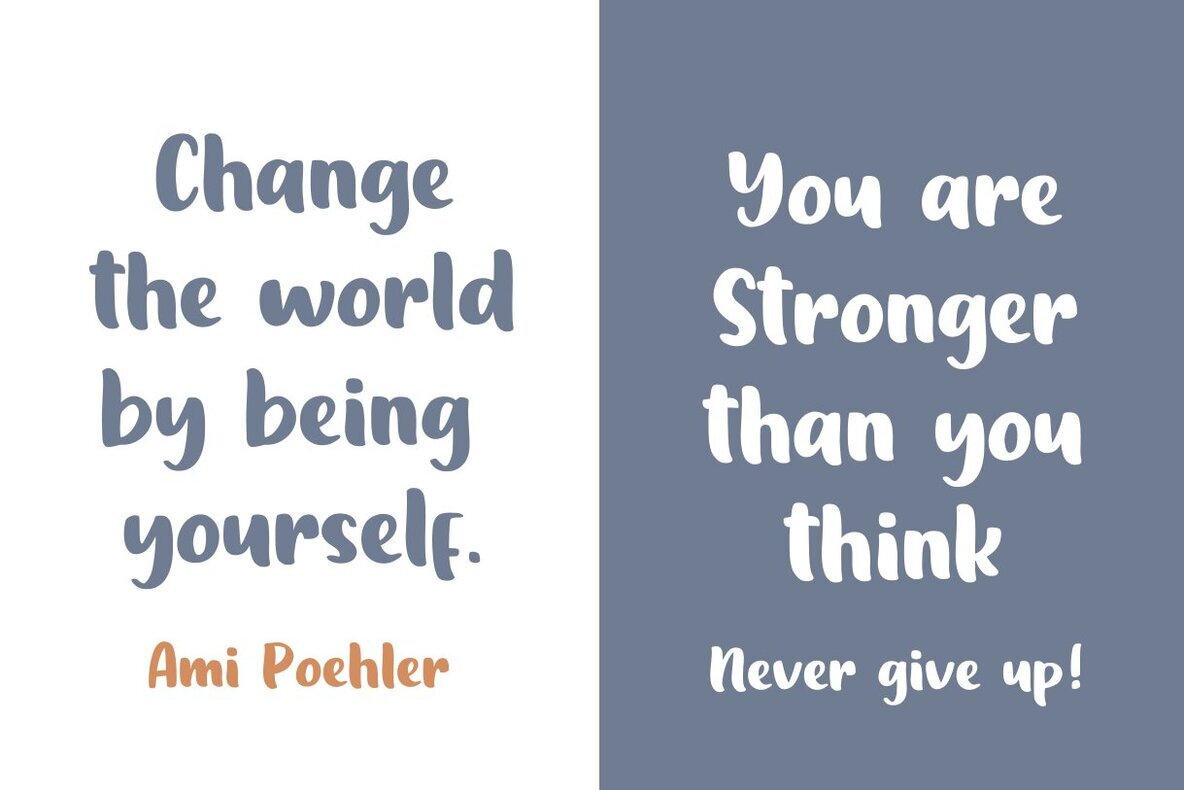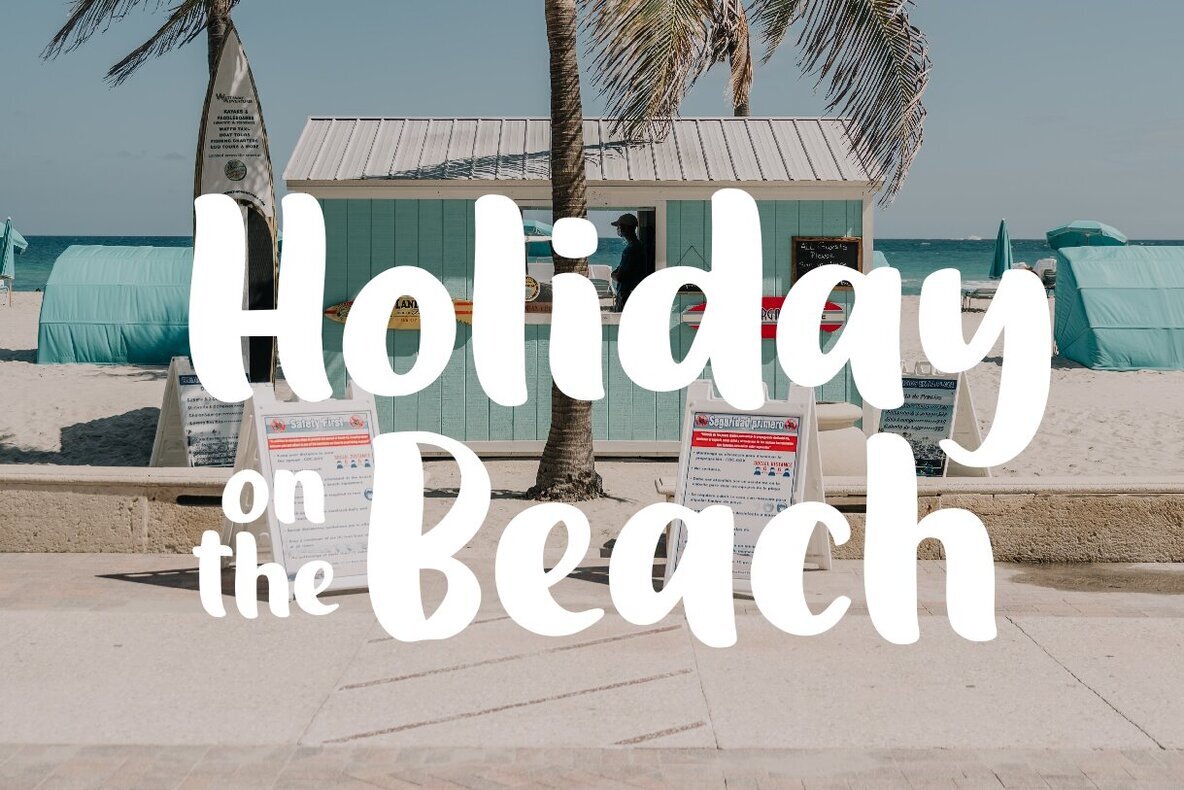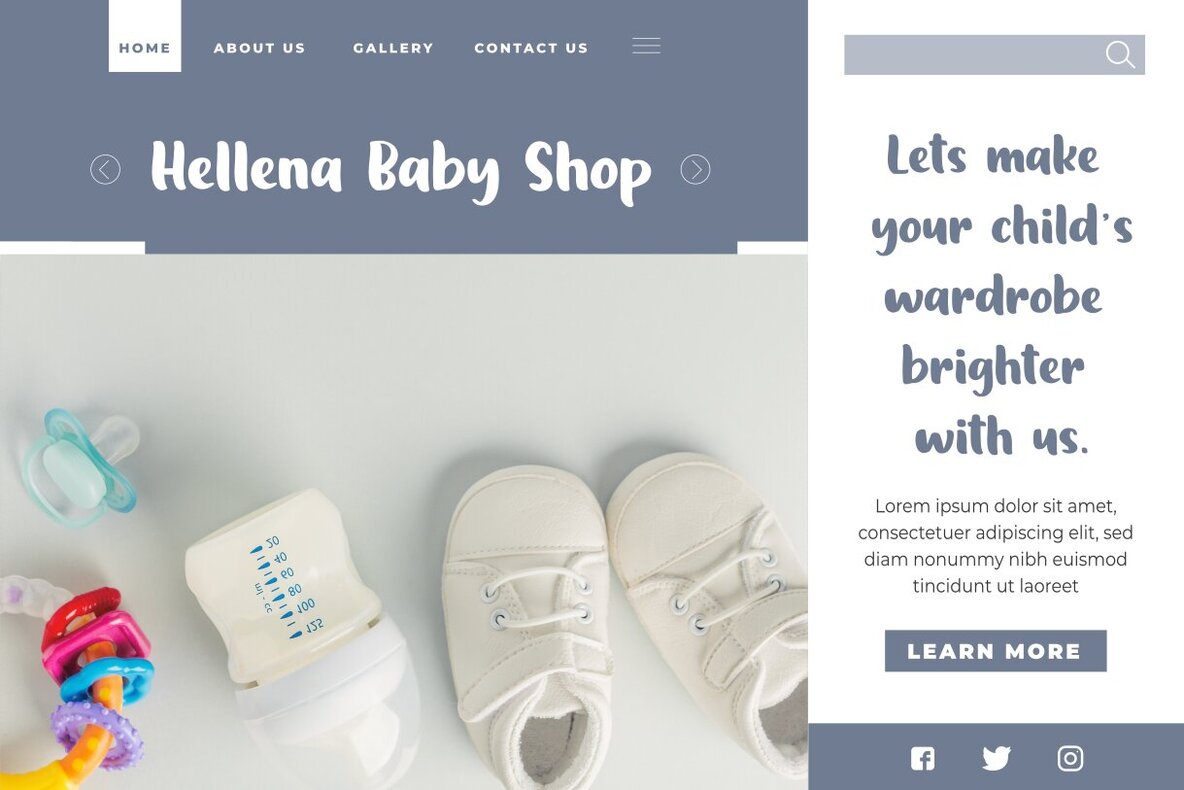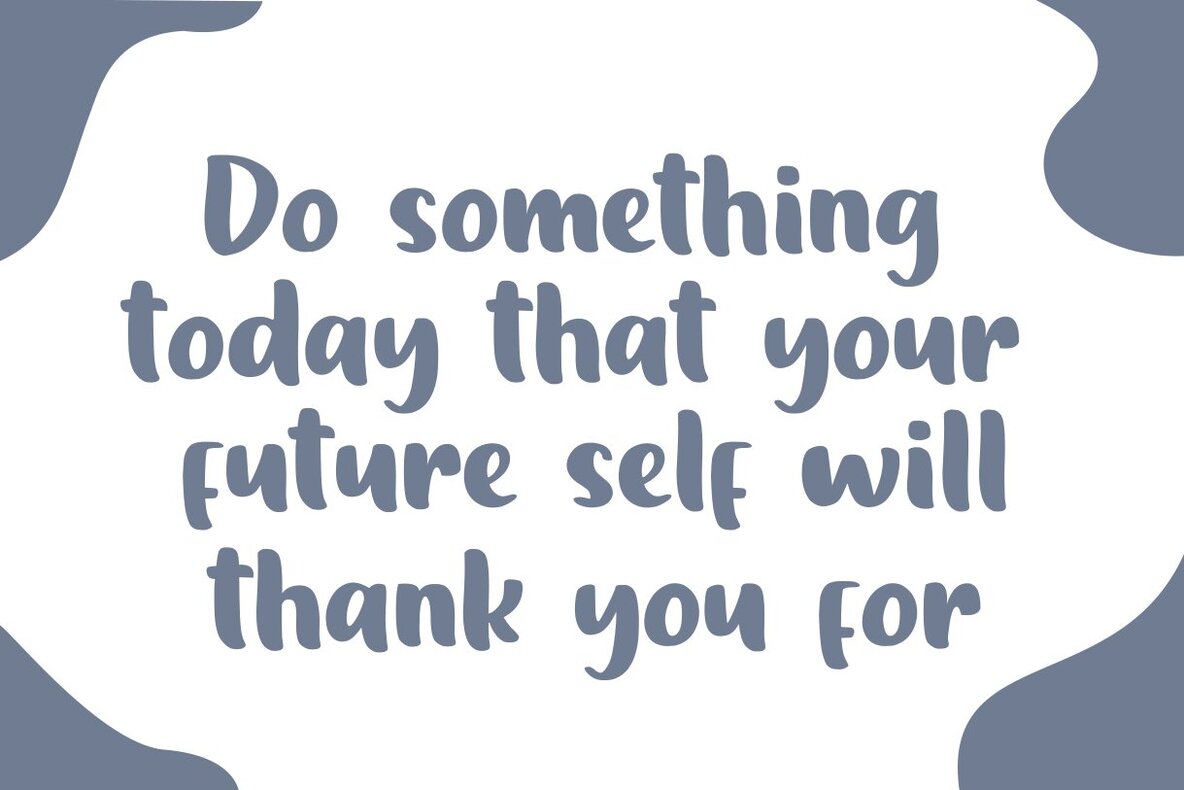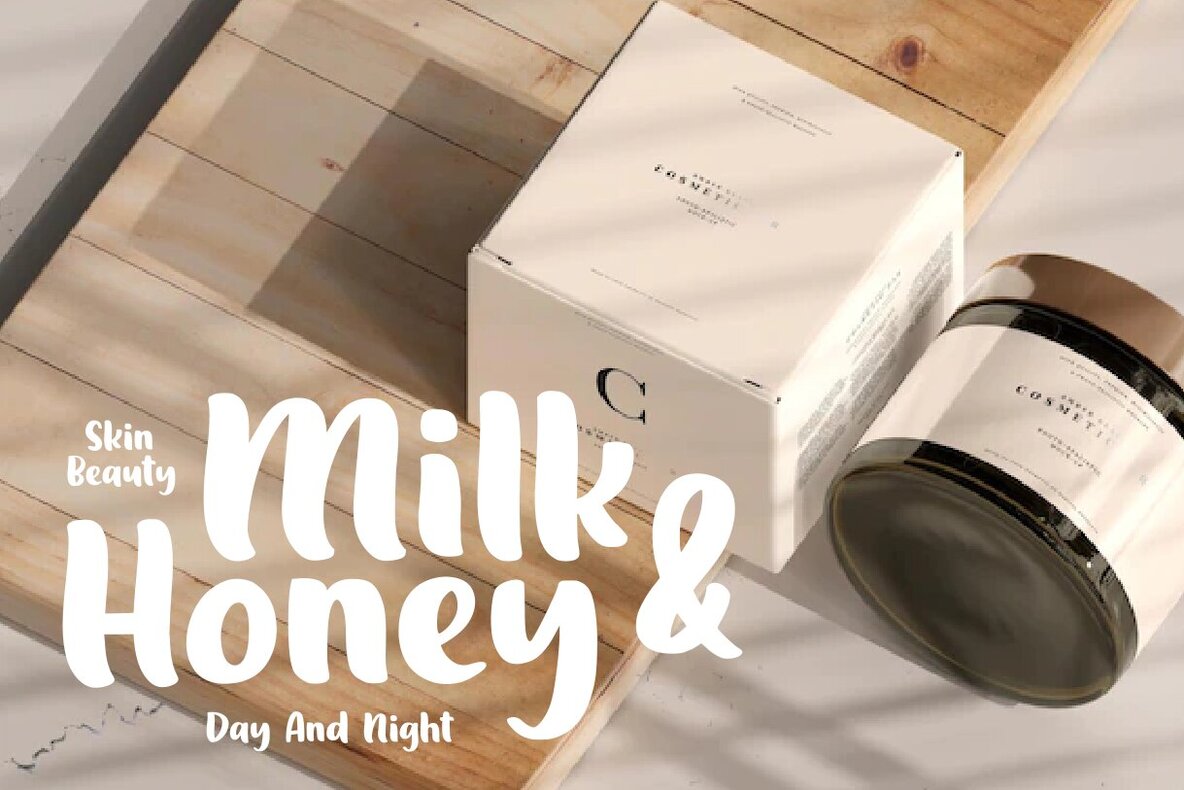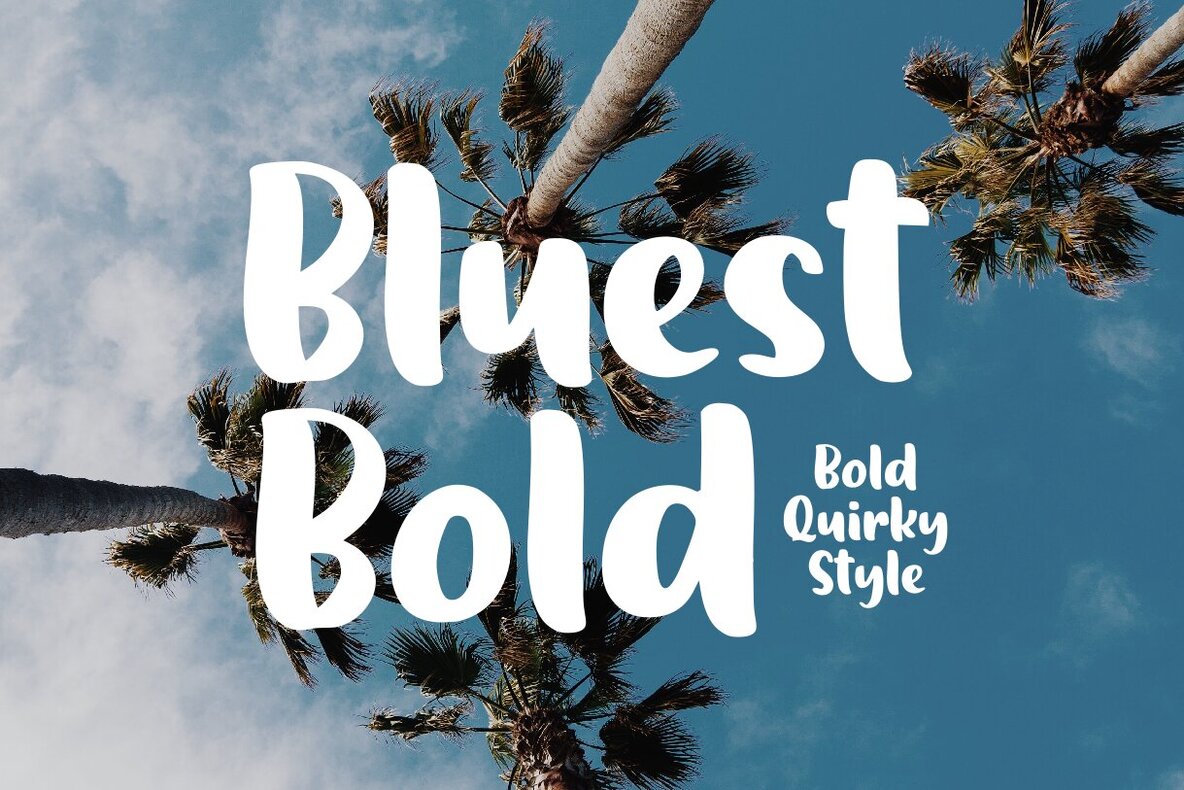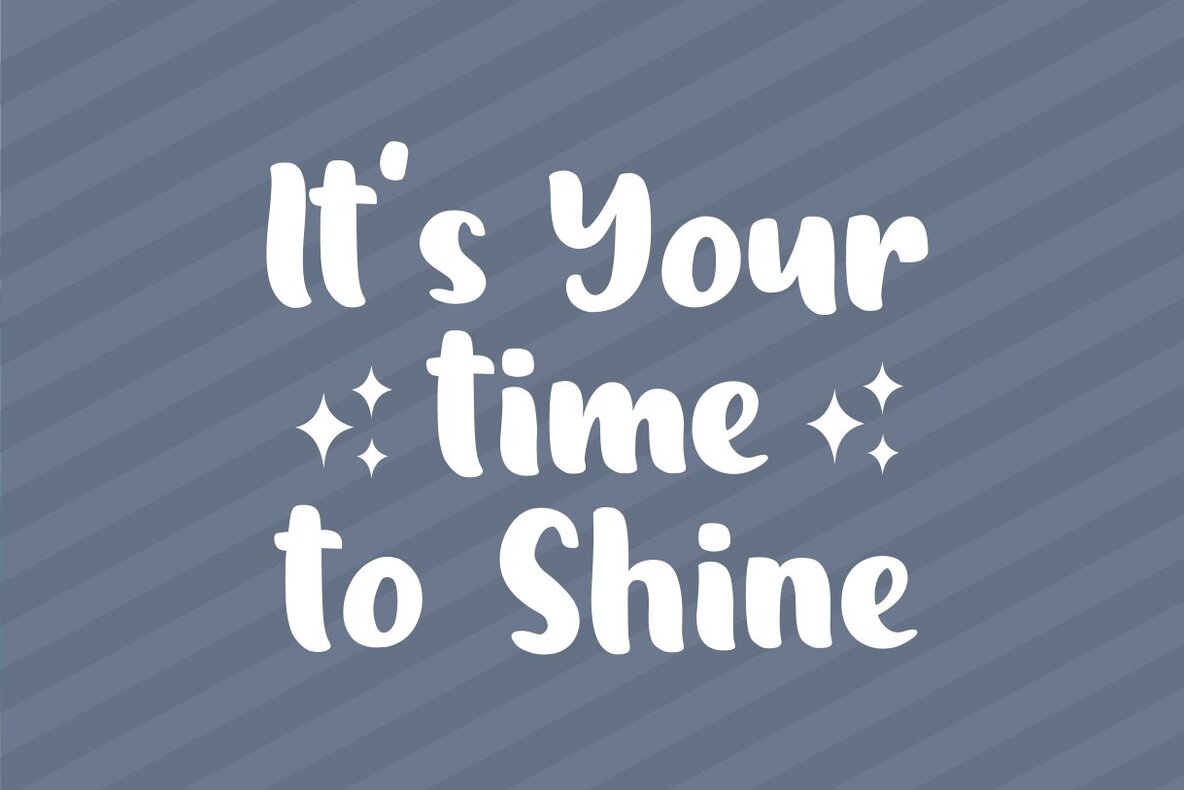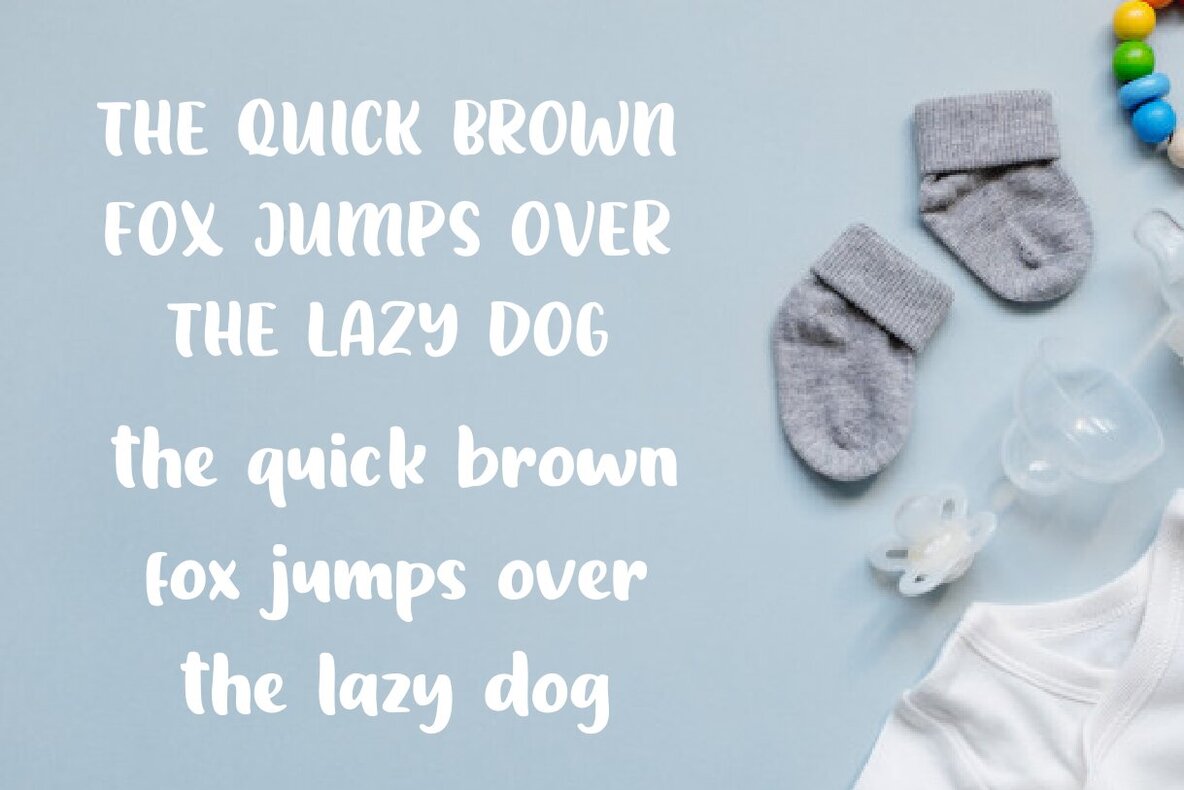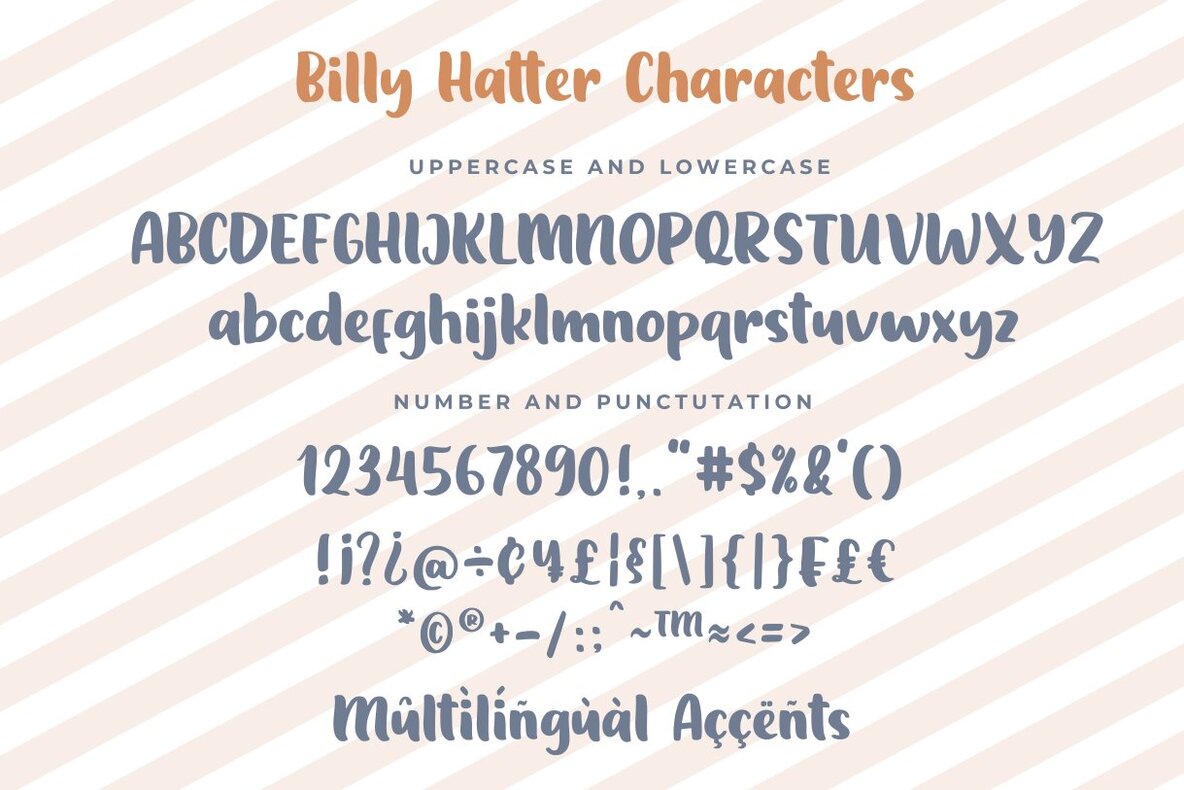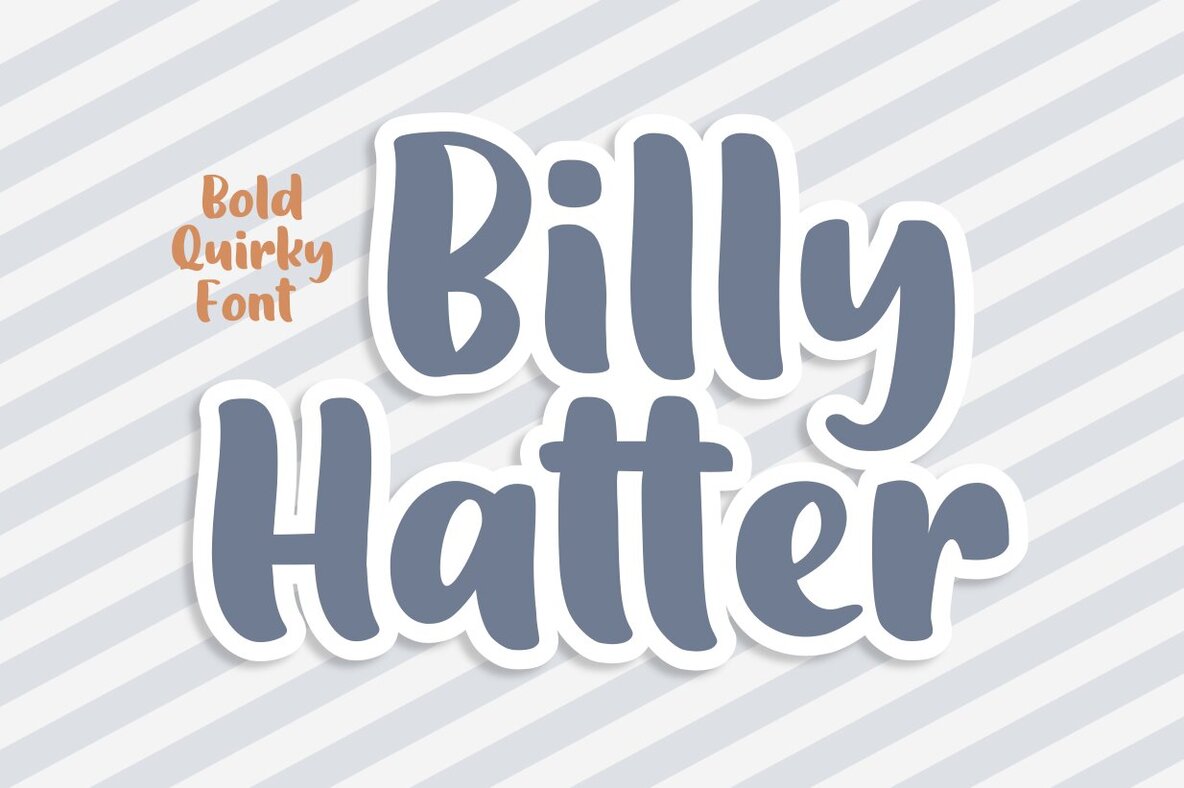
Billy Hatter Font
Billy Hatter Regular
Billy Hatter by Zeenesia Studio is a playful and stylish handwritten font. Its bouncy and charming design makes it an excellent choice for various design projects and crafting ideas. We hope you enjoy using Billy Hatter. Please reach out with any thoughts or feedback you may have. Thank you for choosing our font!Billy Hatter: Quirky Handwritten Typeface